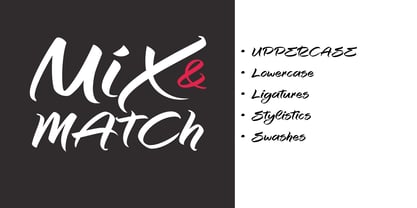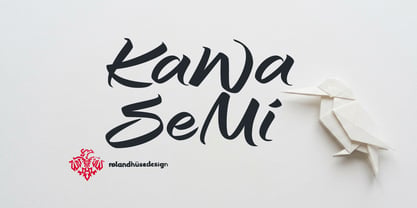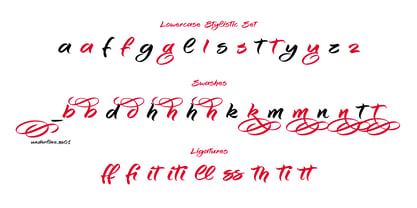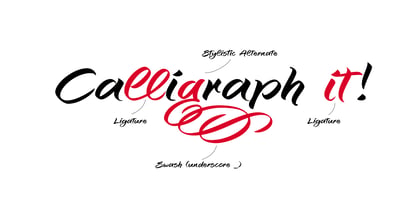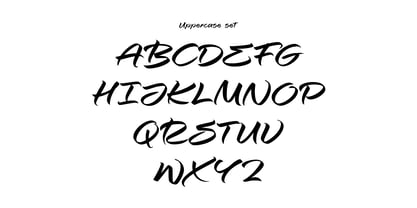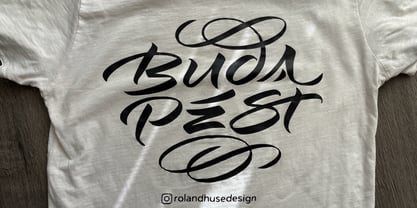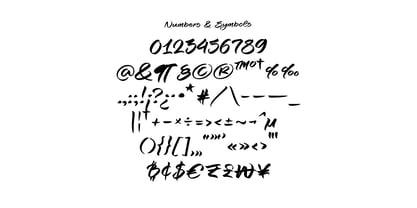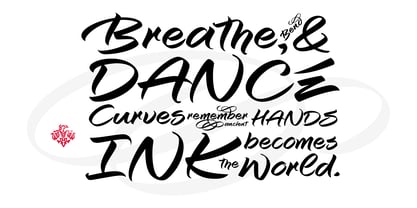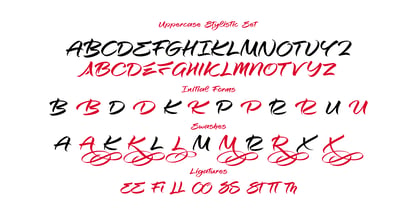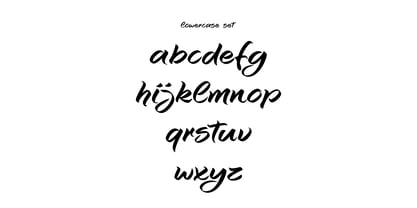
Kawasemi
von Roland Hüse Design
Kawasemi is a Japanese name for kingfisher is a brush script based on handwritten casual calligraphy made with Crayola marker, resembling the energy and style of Asian brush calligraphy. Every stroke keeps its natural imperfection, a little uneven, a little raw.
Letters lean into each other, some strokes clash on purpose, spacing runs tight by design — all carefully kerned so the connections still read smooth and intentional rather than accidental. The result is a script that feels hand-drawn because it is hand-drawn, digitized without sanding down its personality.
Best use case is for logos, headlines, and short titles — anywhere a single confident gesture says more than a paragraph of type ever could. With extra characters for, swashes, alternates, and ligatures giving room to for creative experiment.
"Breathe, bend and dance. Curves remember hands. Ink becomes the world."
Designer: Roland Hüse
Foundry: Roland Hüse Design